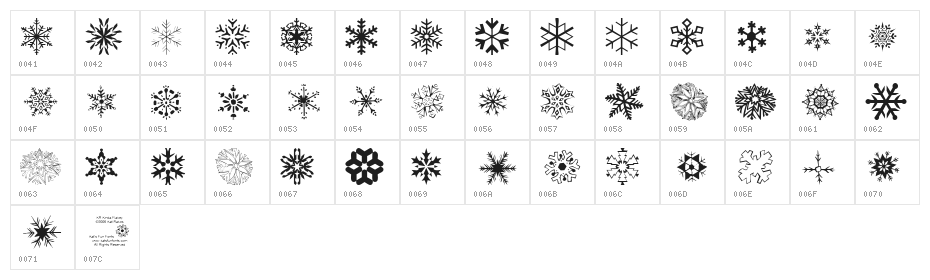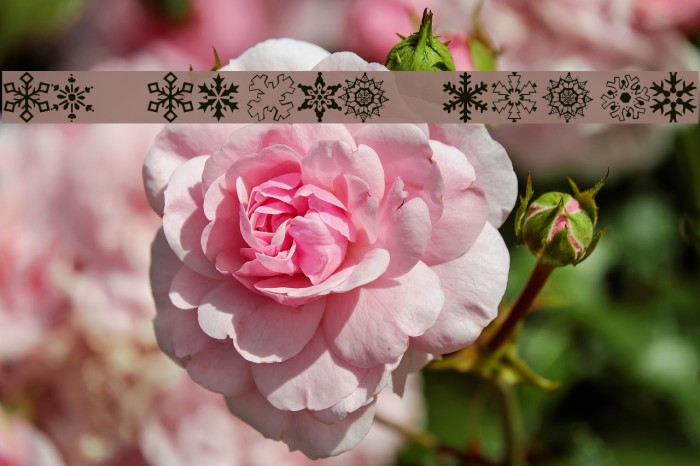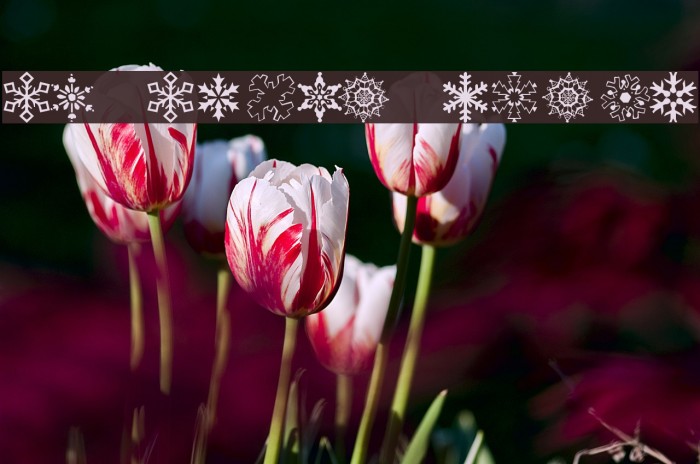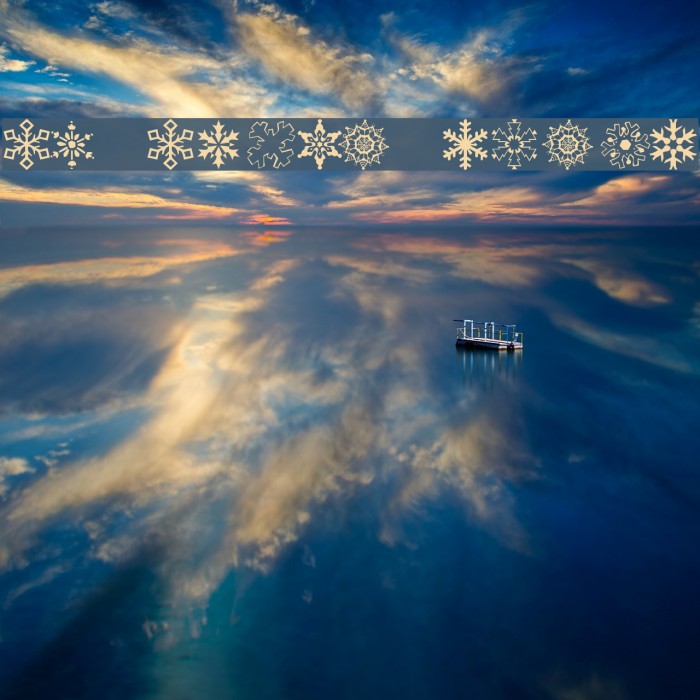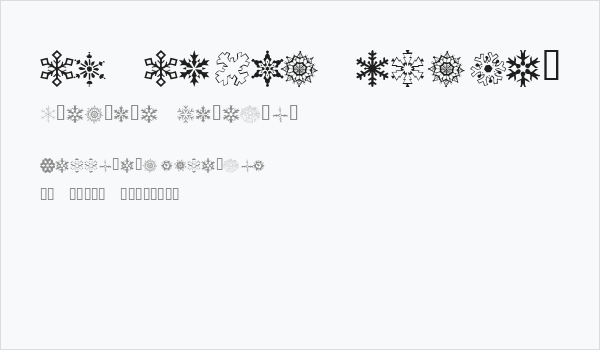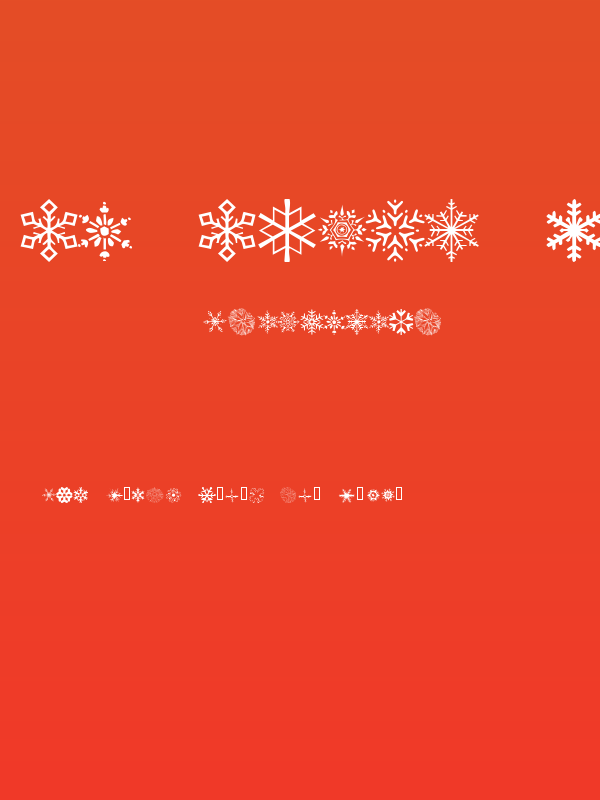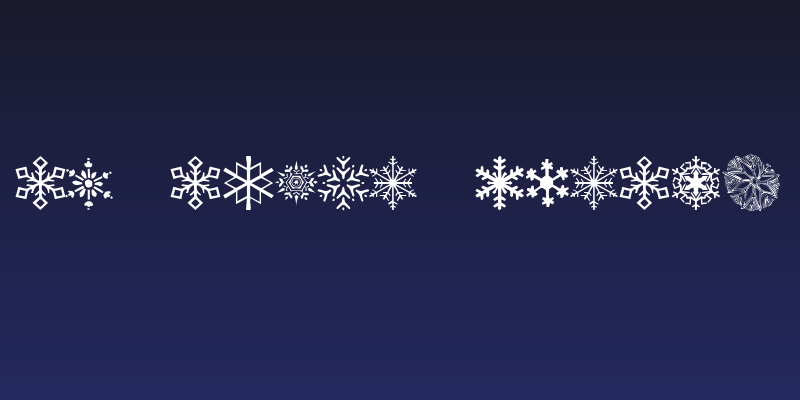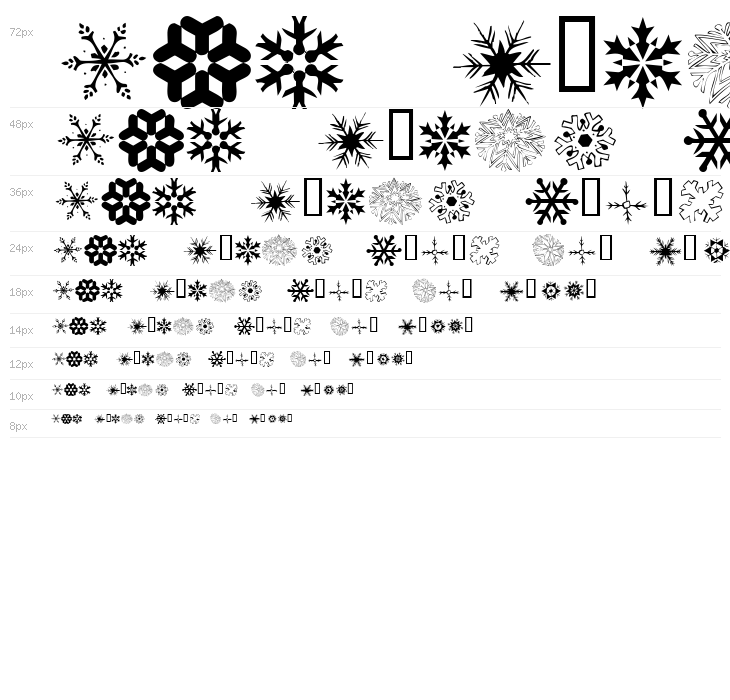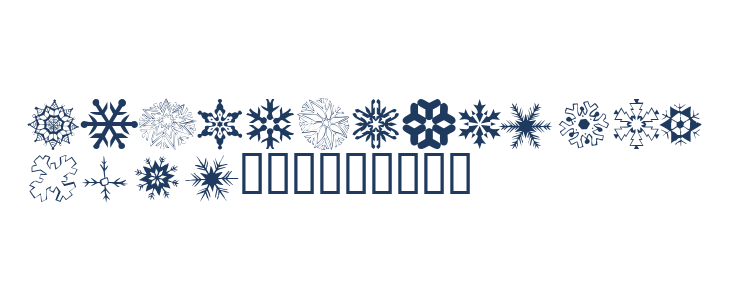
KR Kinda Flakey Font
KR Kinda Flakey Description
A decorative font composed entirely of unique snowflake illustrations, each glyph representing a different intricate snowflake design with varying levels of detail and line thickness.
| Overall Style | Decorative, Festive, Thematic |
| Use Case | Decorative elements, Borders, Themed graphics |
| Proposed Projects | Holiday cards, winter-themed invitations, seasonal posters, festive banners, decorative borders. |